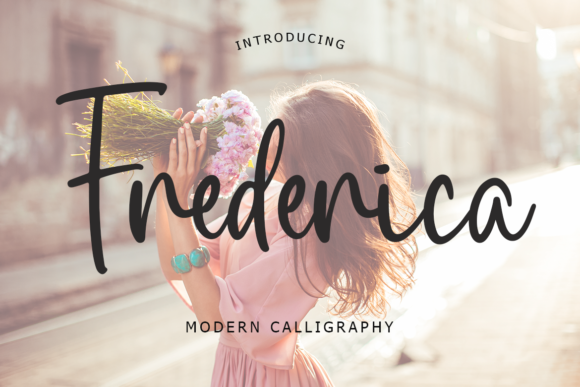
Dive into the enchanting world of Frederica Font, a captivating script font that will leave you spellbound with its captivating beauty. Experience the allure of its varying baseline, where each letter dances gracefully upon the page, creating an enchanting visual symphony. Let your words flow effortlessly with the smooth lines of Frederica, as it gracefully guides your thoughts onto paper or digital screens. Embrace the elegance of its gorgeous glyphs, intricate details that add depth and character to every design. Playfully explore the stunning alternates, allowing you to mix and match letterforms, creating unique and eye-catching compositions.
With Frederica Font as your creative companion, transform ordinary text into captivating works of art. Craft wedding invitations that exude romance and sophistication, where every word whispers a tale of love. Design beautiful stationary art that captures the essence of timeless elegance, leaving a lasting impression on your loved ones. Create social media posts that demand attention, drawing your audience into a world of visual enchantment. Spread joy and warmth with cute greeting cards, adorned with Frederica's charming characters, sure to bring a smile to anyone's face.
Frederica Font is not just a collection of letters; it's an invitation to embark on a creative journey. Unleash your imagination and let the magic of Frederica guide you as you weave enchanting stories, design breathtaking logos, and create unforgettable branding. Its versatility knows no bounds, effortlessly adapting to a myriad of projects, from personal to professional. Whether you're a seasoned designer or just starting your creative adventure, Frederica Font will elevate your designs to new heights.
Don't resist the allure of Frederica Font any longer. Dive into its captivating world and experience the transformative power of beautiful typography. Let your creativity flourish as you explore the endless possibilities that await you. Embrace the beauty of Frederica Font and elevate your designs to new heights of excellence. The journey to stunning visual creations begins now.